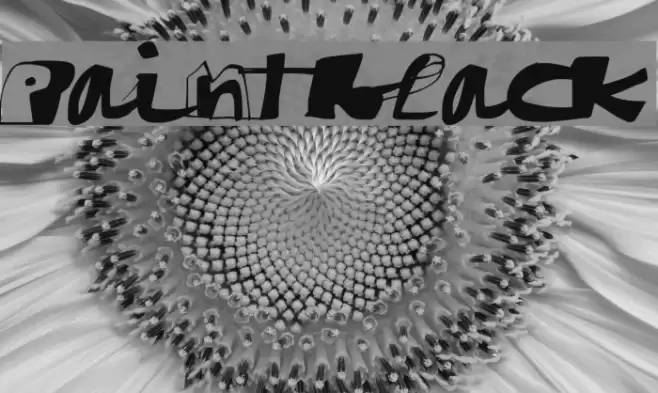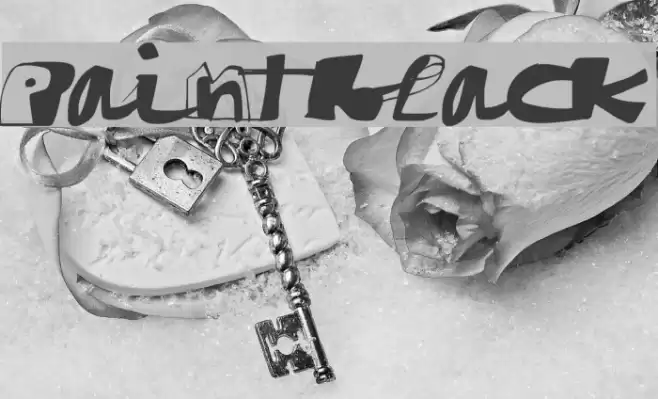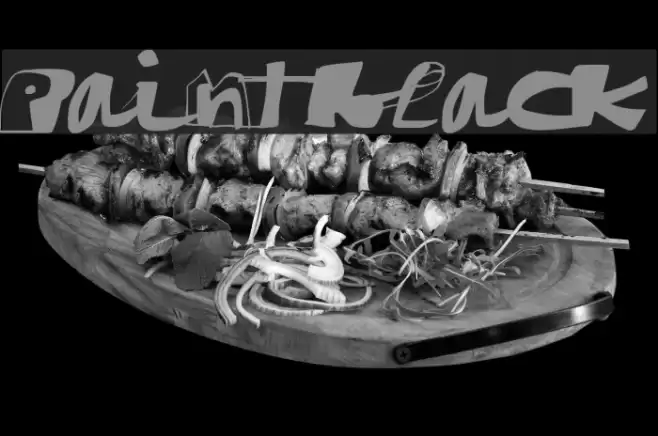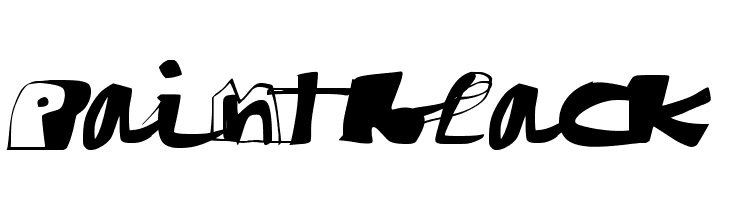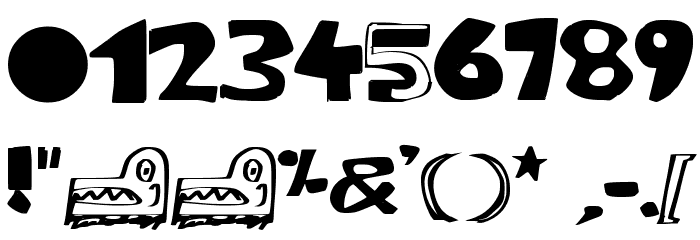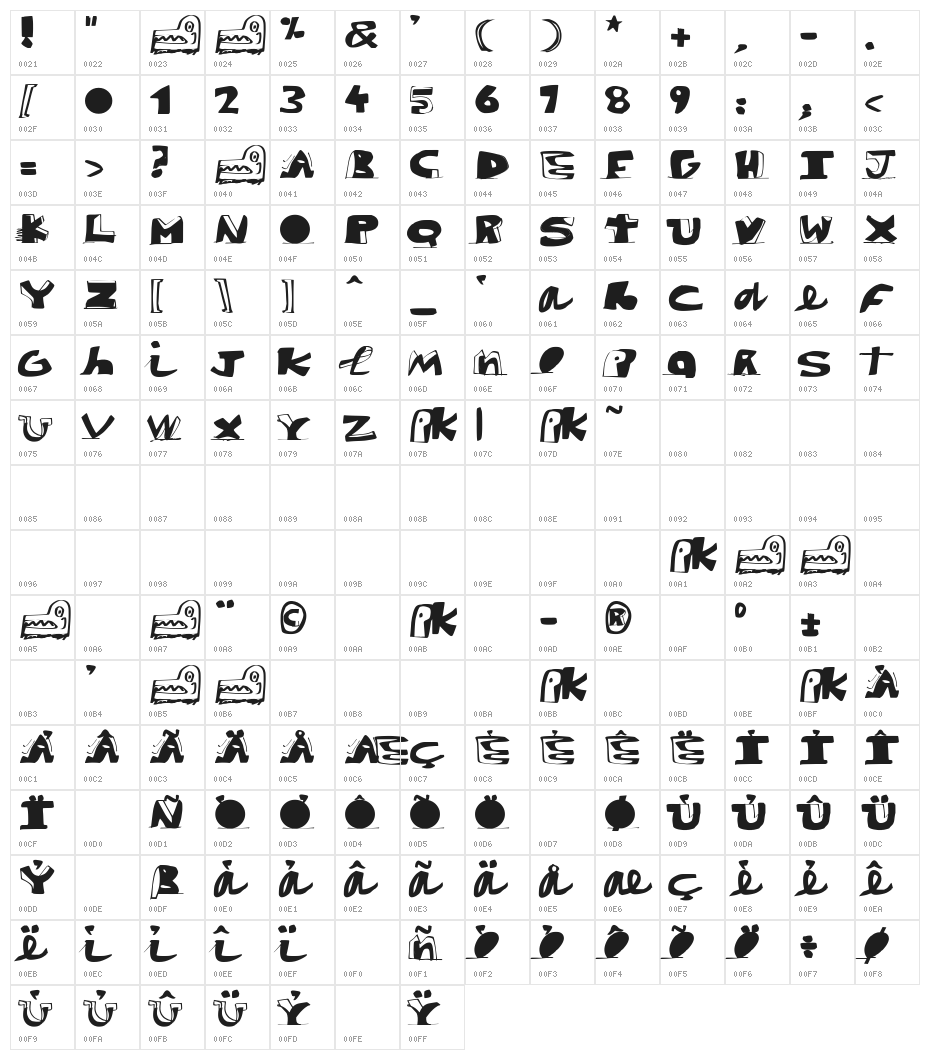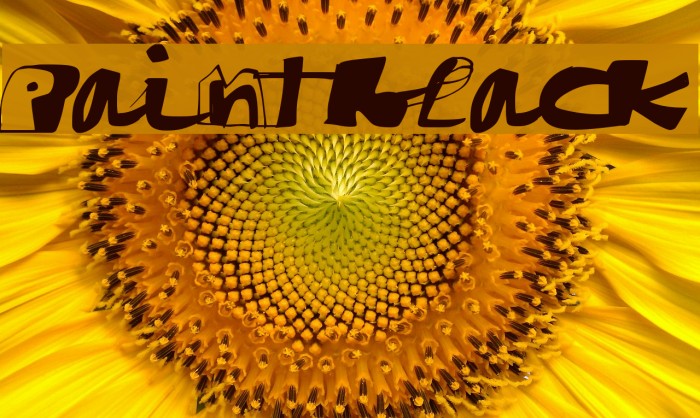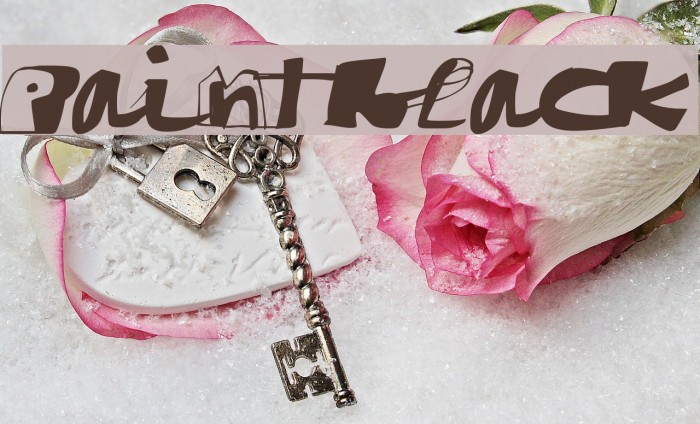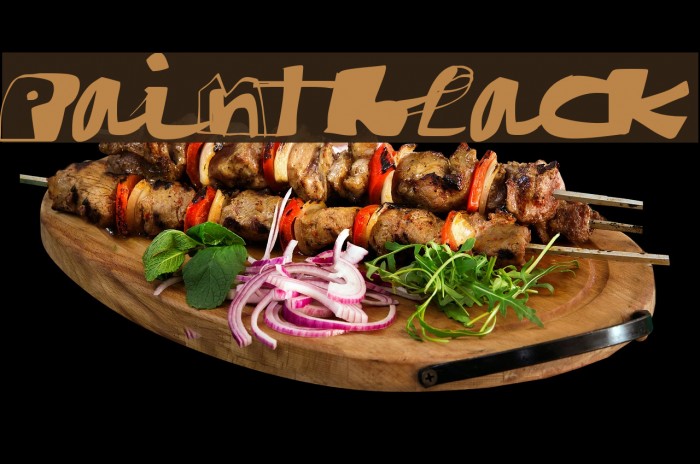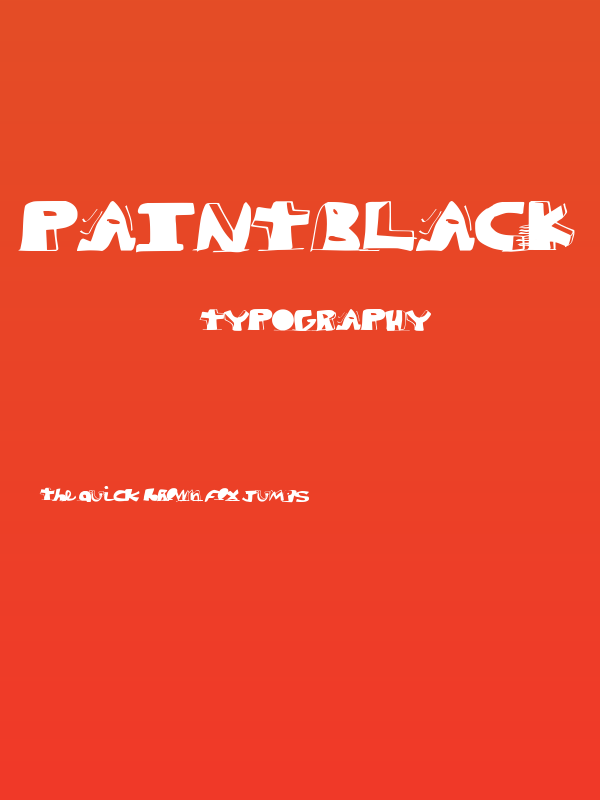
paintblack Font
paintblack Description
This font features a bold and dynamic design with a graffiti-like aesthetic. The characters are highly stylized, with exaggerated forms and playful, irregular shapes. The uppercase letters are particularly striking, with a mix of sharp angles and rounded edges that create a sense of movement and energy. The lowercase letters maintain this lively style, offering a cohesive look across the alphabet. Numbers and special characters are equally bold, adding to the overall impact of the font. This design is perfect for projects that require a strong, artistic statement.
A bold, graffiti-inspired font with dynamic, irregular shapes from Decorative fonts.
- Proposed Projects: Ideal for street art-themed designs, music album covers, posters, and urban branding projects.
- Overall Style: Modern, Urban